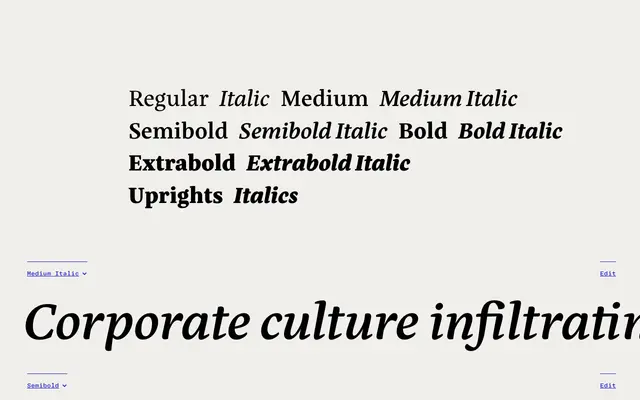
Eskorte Latin
Rosetta · Elena Schneider · 2013
A crisp, businesslike text serif by Elena Schneider, designed for professional and text-intensive environments across five weights with lively matching italics.
Designed by Elena Schneider and released in 2013, Eskorte Latin covers five weights from Regular to Extrabold, each with a matching italic, plus variable font versions of both axes. The italics carry distinctive character details, including a double-storey 'a' with sharp cuts and a 'g' with a sassy ear, giving text settings warmth without sacrificing efficiency. With small caps, case-sensitive punctuation, tabular and proportional figures, and support for over 300 Latin-script languages, it is built for demanding typographic work from corporate reports to lifestyle magazines.
Eskorte is a text serif with humanist proportions and lively italics, designed for professional and editorial environments. Its crisp, businesslike character and clean forms place it firmly in the humanist serif tradition.